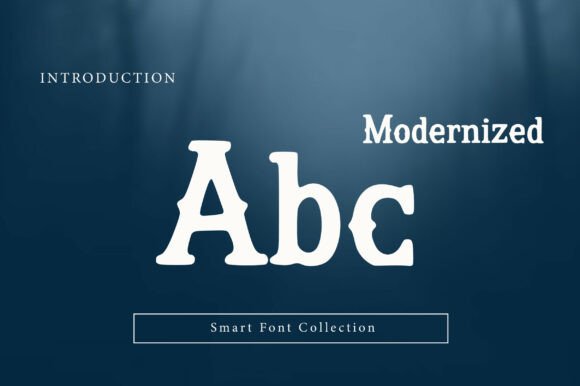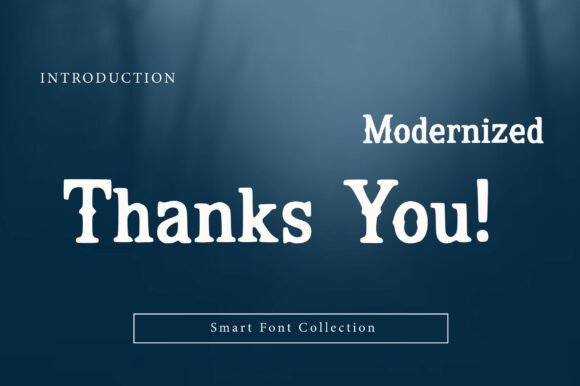
Introduction to Modernized Font
Remember that moment when you’re brainstorming ideas for a creative project and you can’t find the perfect font to match your vision? You’ve searched high and low for the perfect combination of style and functionality, but nothing seems to fit quite right. That’s where the Modernized Font comes in – a game-changing design resource that’s about to become your new go-to for elegant, high-quality typography.
As a designer, you know how valuable it is to have access to a wide range of fonts that can elevate your work and make it stand out from the crowd. And with the Modernized Font, you’ll have the perfect tool at your disposal to create stunning, professional-looking designs with ease. Whether you’re working on a boutique branding project or creating a modern vintage-inspired design, this font is sure to deliver.
Key Features of Modernized Font
- High-quality design: The Modernized Font is crafted with precision and care, ensuring a visually appealing and professional look for your creative project.
- Transparent background: Enjoy seamless integration with your design by utilizing the transparent background feature, ideal for layered designs.
- High-resolution design: With a resolution of 300 DPI, this font ensures crisp and clear text, perfect for print or digital applications.
- Customizable: The Modernized Font is highly customizable, allowing you to adjust the size, color, and style to suit your design needs.
- Perfect for creative projects: Whether you’re working on a logo, branding, or typography-based design, the Modernized Font is an excellent choice due to its unique characteristics and versatility.
As a designer, I’m always on the lookout for high-quality design resources that can elevate my creative projects. The Modernized Font is one such resource that caught my attention.
What works well: ✨ The Modernized Font has a sleek, modern design that’s perfect for any project that requires a touch of sophistication. The font is highly customizable, allowing me to adjust the spacing and size to suit my needs. I also appreciate the transparent background, which makes it easy to overlay the font on any image or background.
- High quality: The font is incredibly crisp and clear, making it perfect for printing or digital use.
- Design versatility: The Modernized Font is suitable for a wide range of creative projects, from business cards to social media graphics.
Limitations: ⚠️ While the Modernized Font is an excellent resource, I do wish it came in more font styles. Currently, it’s only available in a single style, which can be limiting for some designers.
Overall impression: The Modernized Font is a fantastic addition to any designer’s toolkit. Its sleek design, high quality, and versatility make it an excellent choice for any creative project. While it may have some limitations, I highly recommend it for designers looking for a modern and stylish font.
Use the Modernized Font on a transparent background to give your design a modern look. Experiment with different font sizes and styles to create a unique visual effect. You can also use the font in combination with other design elements to create a cohesive look.
The Modernized Font is perfect for creative projects, such as logos, brochures, and social media graphics. It’s also great for use in presentations, documents, and websites. With its high-quality design, the Modernized Font is a valuable design resource for any project.